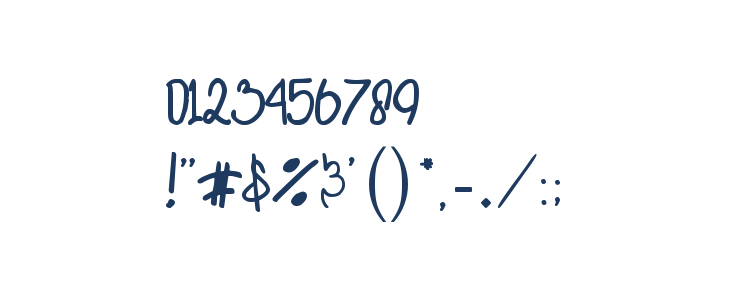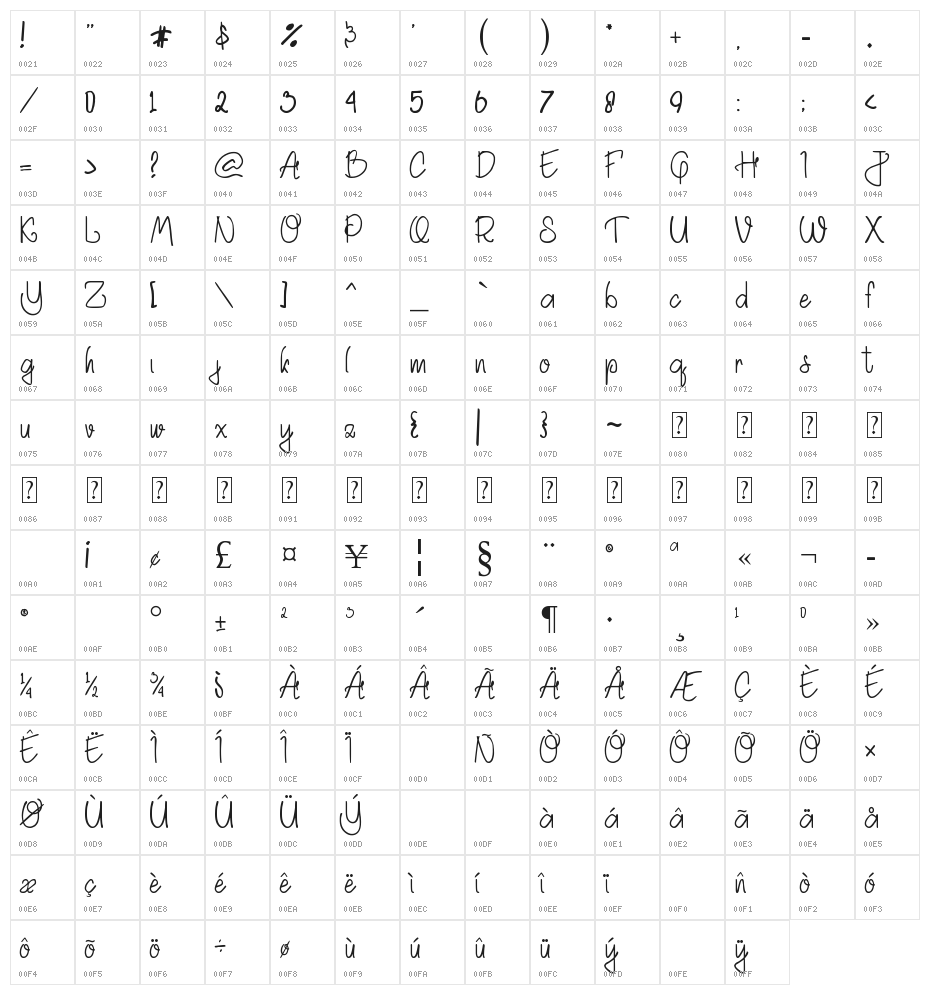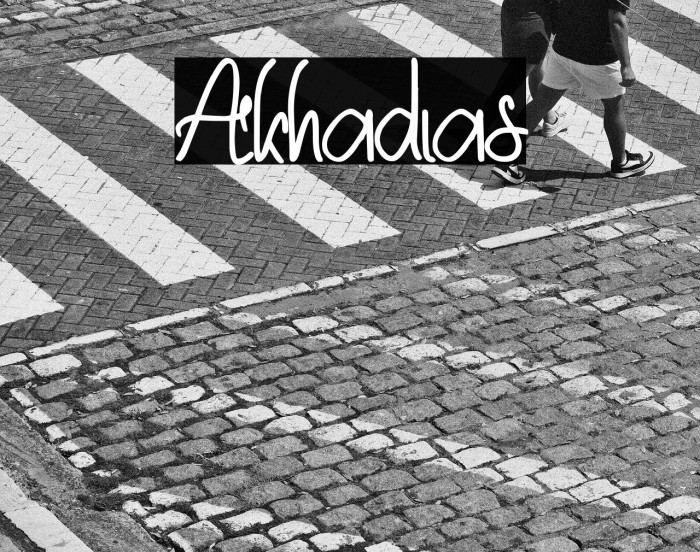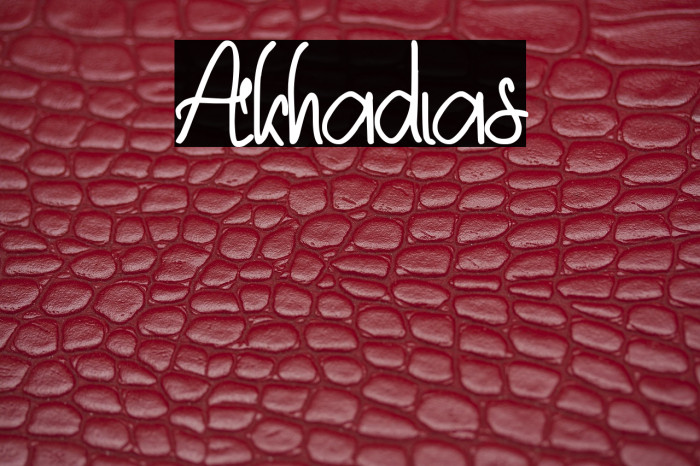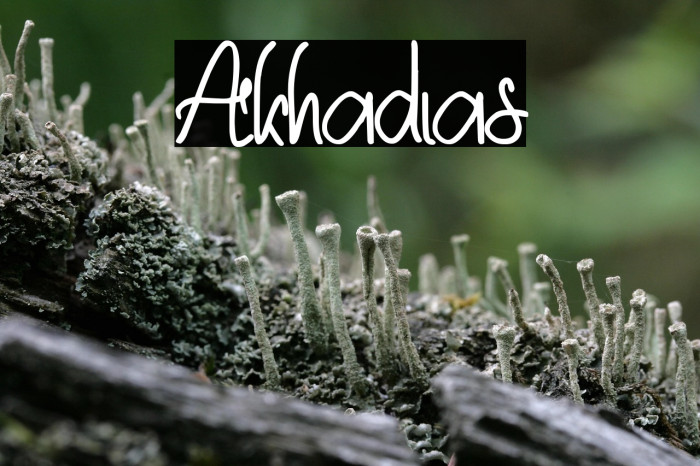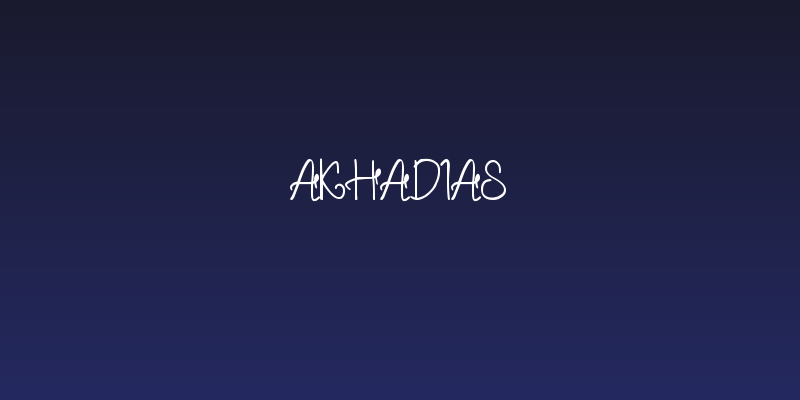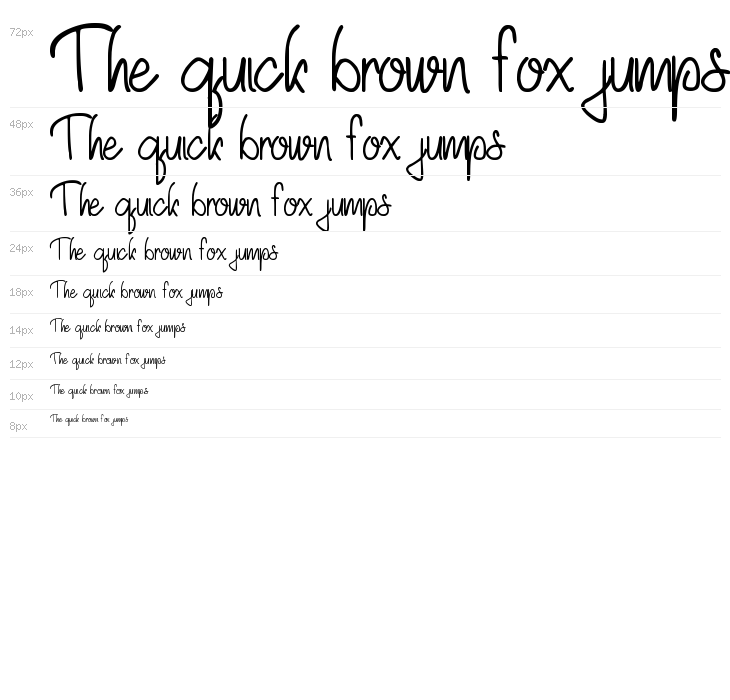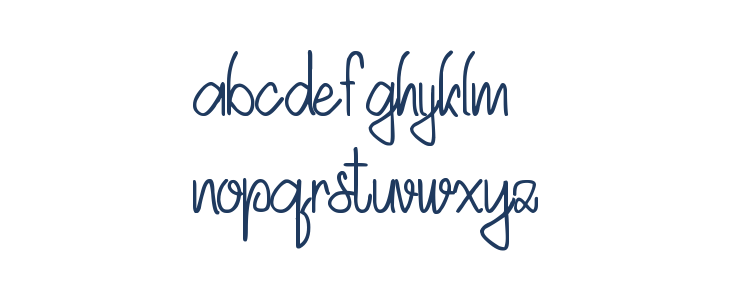
Akhadias Font
Akhadias Description
This font features a playful and whimsical handwritten style, characterized by its fluid and flowing letterforms. The uppercase letters are bold and slightly exaggerated, with a unique flair that adds personality to each character. The lowercase letters maintain a consistent style, with smooth curves and a casual, relaxed appearance. Numbers and special characters follow the same design principles, ensuring a cohesive look across all elements. The font's overall aesthetic is friendly and approachable, making it ideal for projects that require a touch of creativity and warmth.